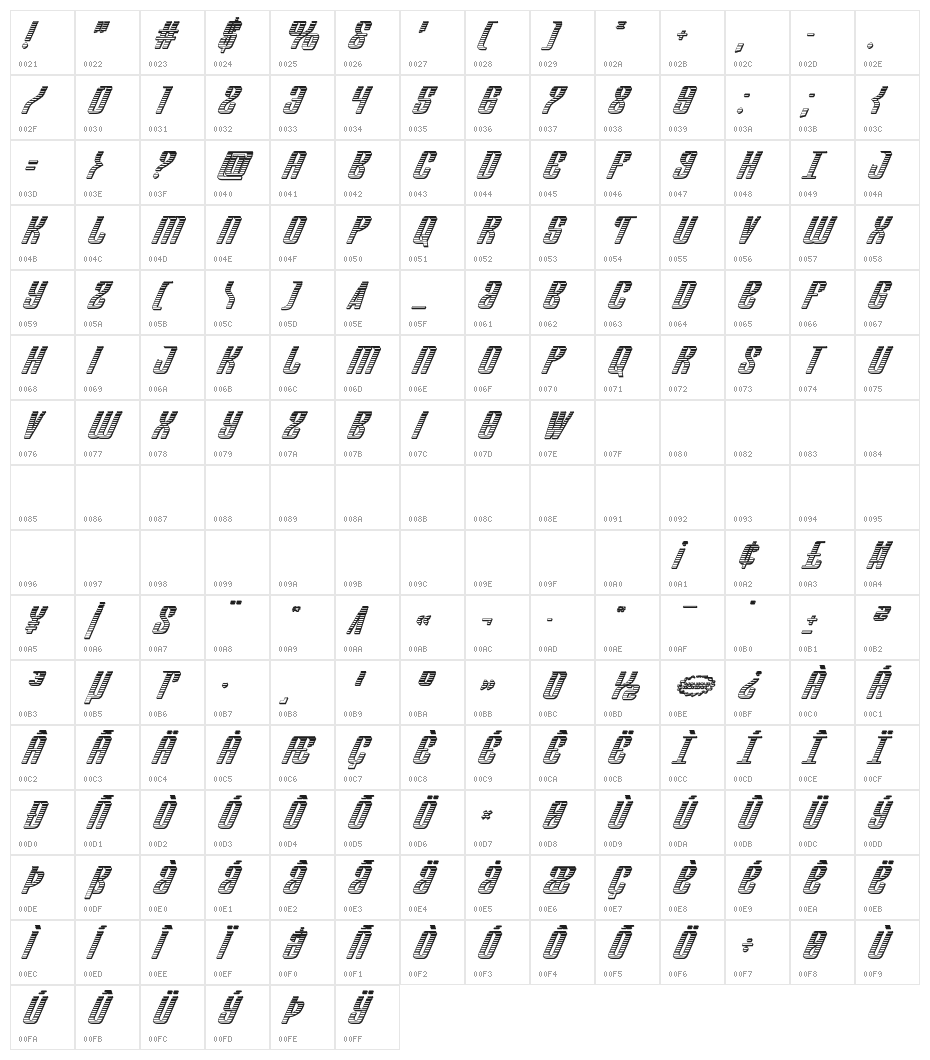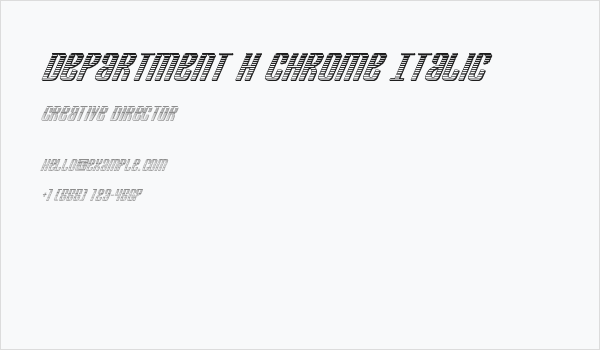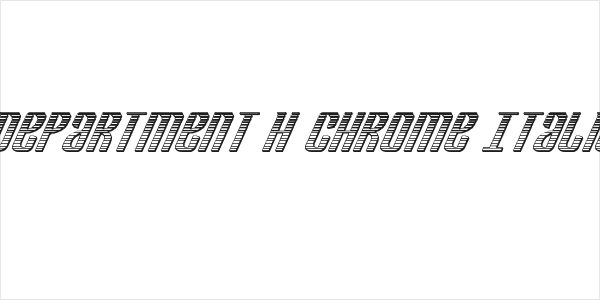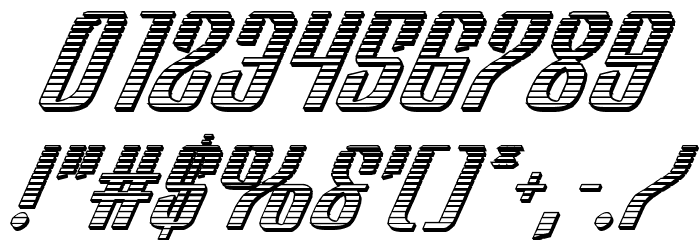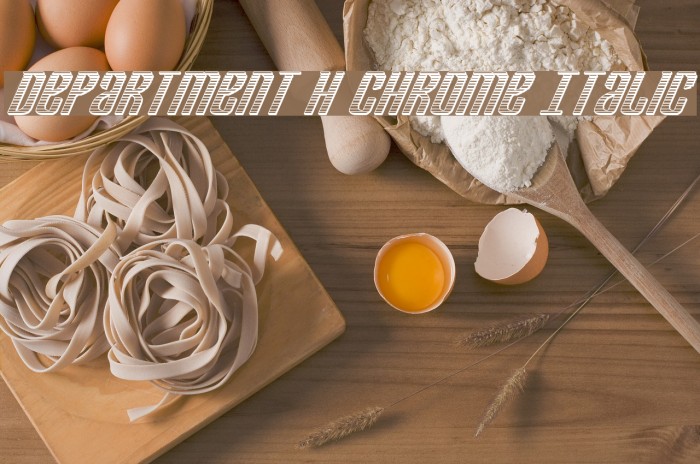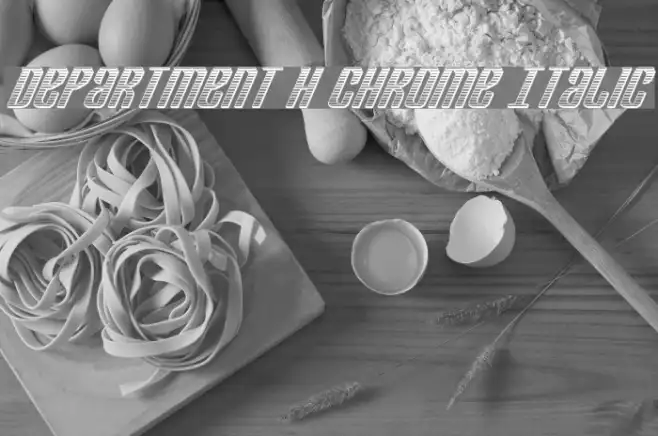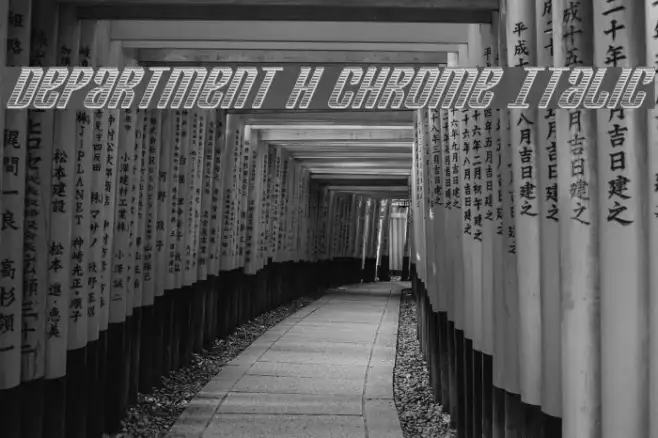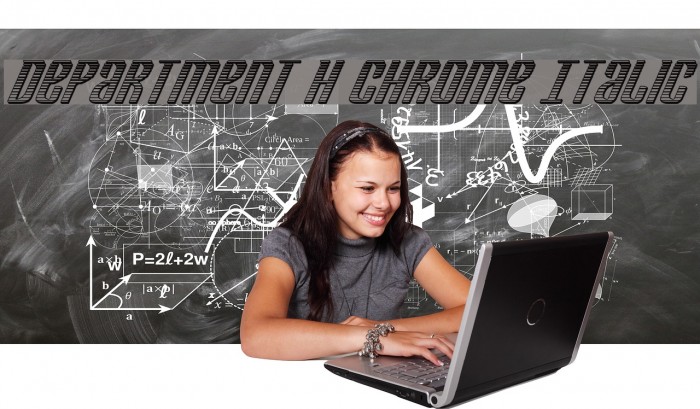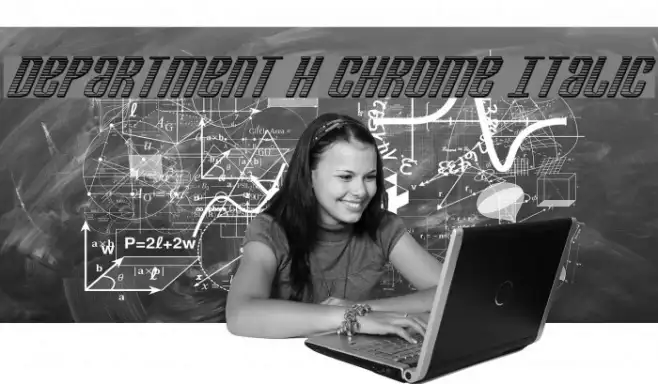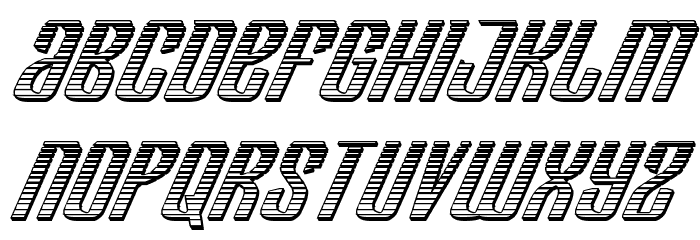
Department H Chrome Italic Font
Department H Chrome Italic Description
This font features a bold, italicized style with a distinct chrome-like appearance. The letters are constructed with parallel lines that create a three-dimensional effect, giving the font a futuristic and industrial feel. The uppercase and lowercase letters maintain a consistent slant, enhancing the italicized look. The numbers and special characters follow the same design principles, ensuring uniformity across all glyphs. The font's unique design makes it stand out, ideal for projects that require a strong visual impact.
| Overall Style | Futuristic, Industrial |
| Proposed Projects | Ideal for use in branding, posters, video game titles, and any project requiring a futuristic or industrial aesthetic. |